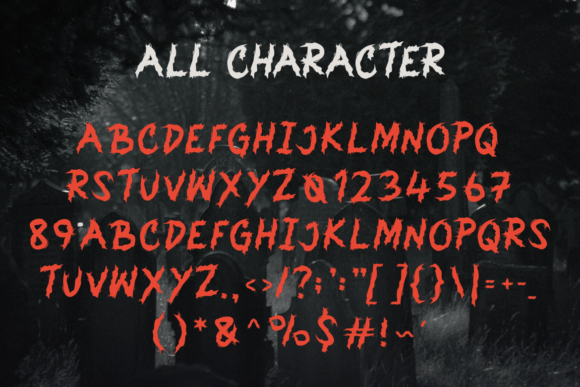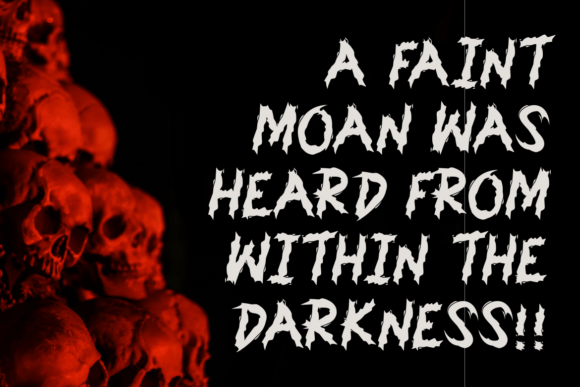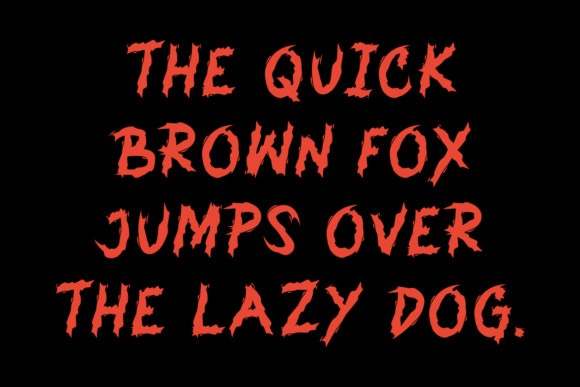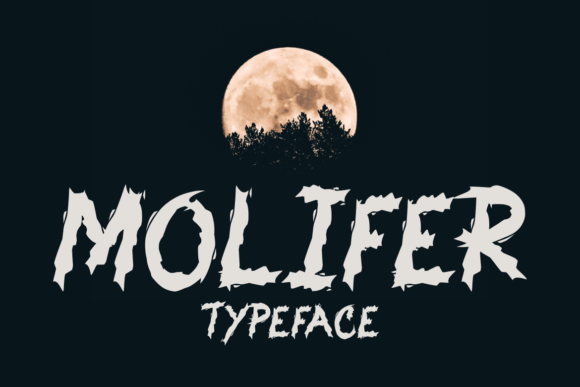
Introduction to Molifer Font
Molife is a distinct, highly detailed, and Horror Metal font.
It would make a great choice for exquisite retro-urban designs, tattoo business branding, logos, vintage designs, and more .
Why Choose Molifer Font?
Molifer Font offers exceptional quality and versatility, making it a valuable addition to your design toolkit. Whether you’re creating for personal projects or commercial use, Molifer Font delivers professional results.